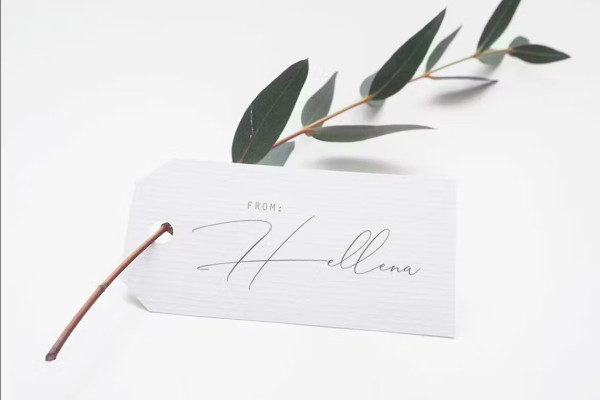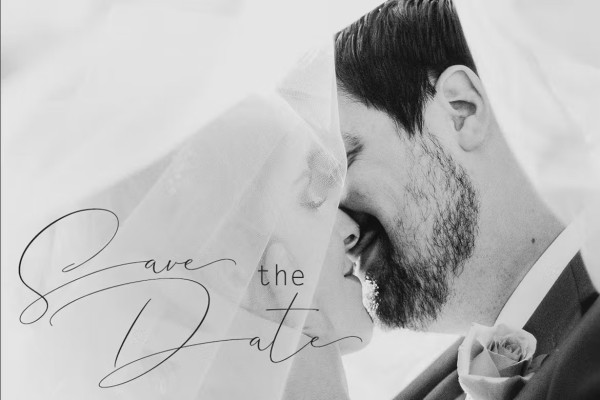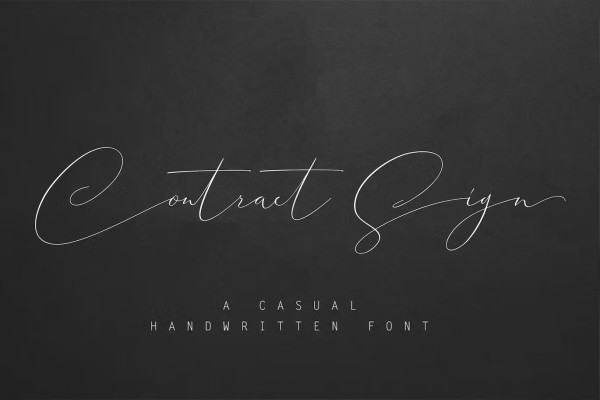
Contract Signature Font
Contract Signature Font a contract A purely written work has a natural characteristic. It is perfect for invitations, signatures, blogs, social networks, business cards, product brands.
Contract Sign includes stylistic standards, stylistic alternatives, stylistic sets, and ligatures. And includes upper and lower case letters, numbers and punctuation marks.